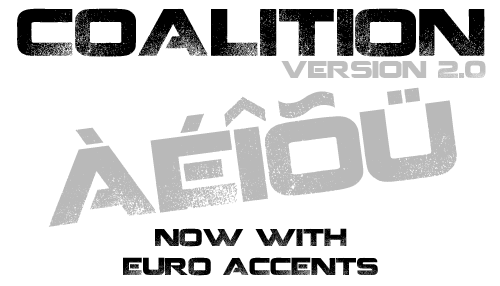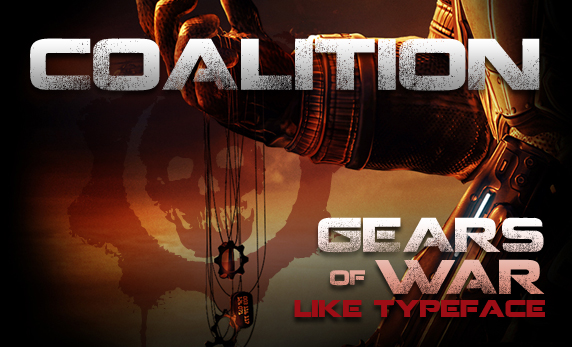
Introducing Coalition Font: A Futuristic Typeface Inspired by Gears of War
In the realm of typography, fonts play a crucial role in conveying the tone and aesthetic of a design. For crafters, designers, and enthusiasts of science fiction, a font that embodies the essence of a futuristic, high-tech world can be a valuable asset. This is where Coalition Font comes into play, a techno/sci-fi typeface created by TracerTong Fontworks that draws inspiration from the popular Gears of War franchise.
What is Coalition Font?
Coalition Font is a meticulously crafted typeface that captures the gritty, industrial feel of a dystopian future. Its design is reminiscent of the Gears of War series, with bold lines, rugged textures, and a mechanical appearance that evokes a sense of power and resilience. The font’s aesthetic is perfect for designs that require a strong, futuristic look, such as video game logos, sci-fi movie posters, or even industrial-themed branding.
Key Features of Coalition Font
Coalition Font boasts several key features that make it an attractive choice for designers:
- Unique Character Set: The font includes a wide range of characters, ensuring that designers have ample options for creating unique and captivating text.
- Industrial Texture: The font’s texture is characterized by a rugged, industrial look that adds depth and grit to any design.
- Scalability: Coalition Font is designed to be highly legible, even at smaller sizes, making it versatile for various applications.
- Customization: The font comes with multiple variations, allowing designers to experiment with different styles and effects.
Who Can Benefit from Coalition Font?
Coalition Font is an excellent addition to the toolkit of:
- Graphic Designers: Professionals looking for a futuristic, industrial font to enhance their branding, posters, or digital projects.
- Game Developers: Those creating sci-fi or action-packed games that require a strong, recognizable typeface.
- Crafters and Makers: Hobbyists and DIY enthusiasts who want to add a touch of industrial chic to their crafts, such as custom signs or artwork.
- Marketing and Advertising Agencies: Teams seeking a bold, attention-grabbing font for campaigns targeting fans of science fiction and technology.
How to Use Coalition Font Effectively
To maximize the impact of Coalition Font, consider the following tips:
- Pair with Contrasting Fonts: Combine Coalition Font with cleaner, more minimalist fonts to create visual contrast and emphasize key information.
- Experiment with Colors: The font’s industrial texture looks striking with metallic colors, neon accents, or bold primaries.
- Utilize Texture and Effects: Don’t be afraid to add textures, gradients, or subtle effects to enhance the font’s industrial appearance.
Coalition Font by TracerTong Fontworks is a powerful, techno/sci-fi typeface that brings a touch of Gears of War-inspired grit to any design. Its unique character set, industrial texture, and scalability make it an excellent choice for designers, crafters, and enthusiasts of science fiction. Whether you’re working on a game, movie, or branding project, Coalition Font is sure to add a bold, futuristic edge to your creations.